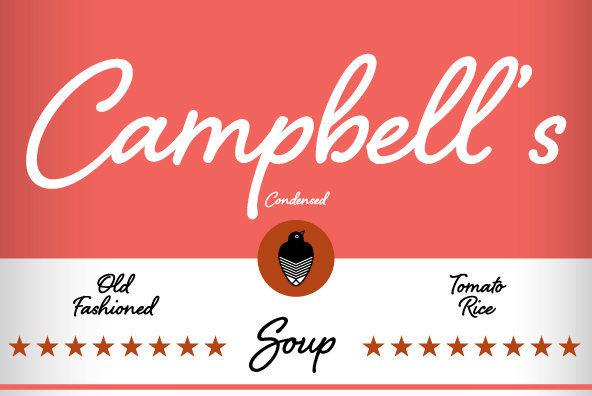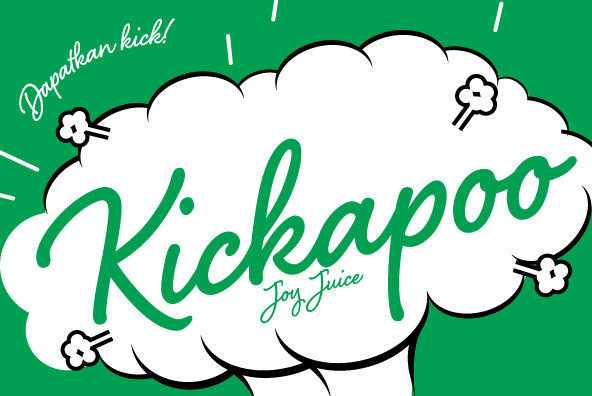
Shelby Font
Shelby is a monoline, semi-connected script typeface based on hand lettering created with a Speedball ‘B’ metal nib. It has a natural appearance of handwriting, yet its style yields enough strength to be used for a variety of purposes – such as headlines, logos and eye catching call-outs. Shelby features several automatic ligatures, stylistic and contextual alternates along with 20 ornaments that have been designed to further its handwritten look.